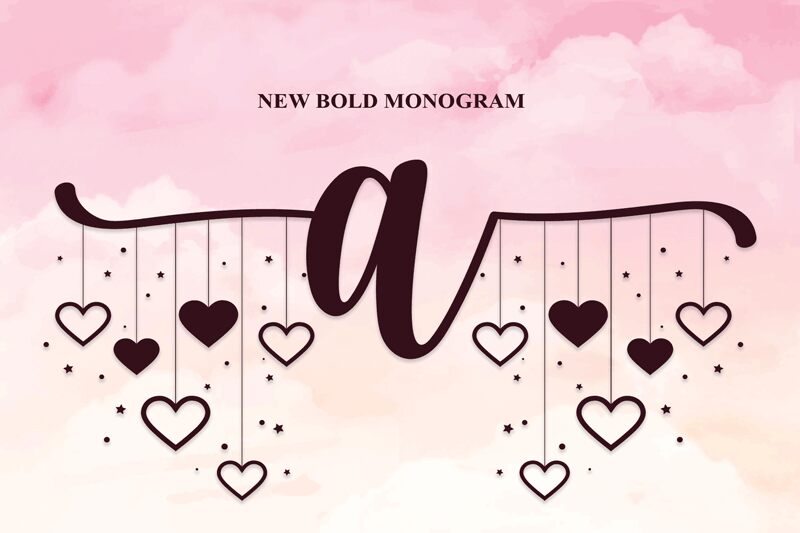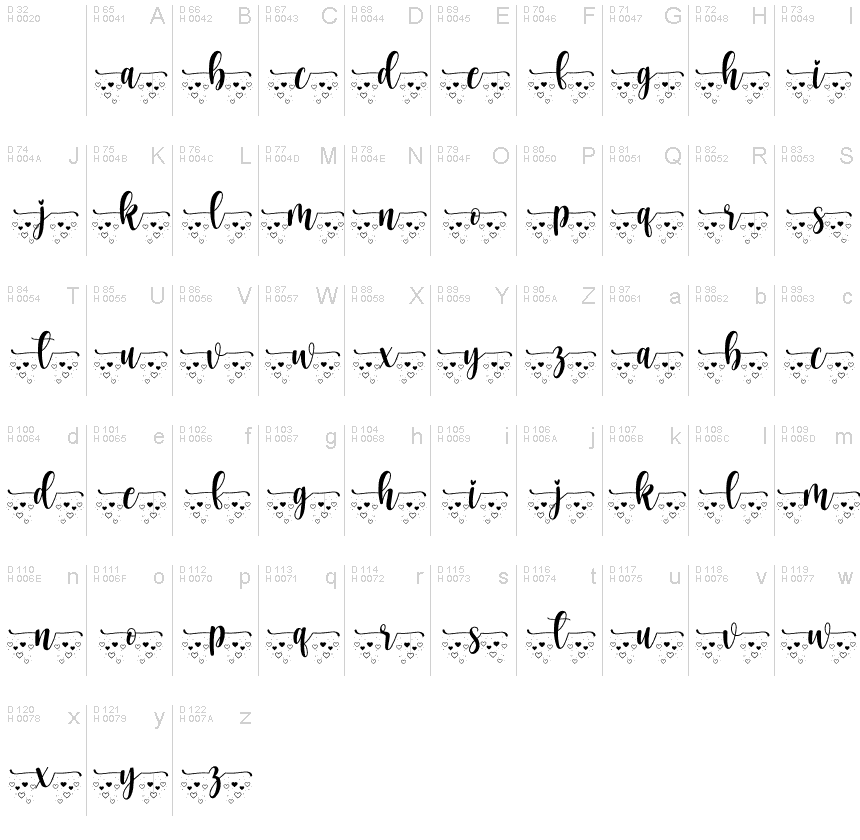
Heart Monogram
Heart Monogram by Scratchones is a captivating display font that exudes charm and personality. With its decorative style and semi-light weight, this font dances between whimsy and elegance, making it an exquisite choice for a plethora of design projects. The playful hearts that dapple the characters bring a touch of romance and affection to any canvas, perfect for invitations, branding, and personalized gifts.
The fluidity of Heart Monogram's strokes lends itself to an aesthetic that is both contemporary and timeless. It's an ideal selection for those seeking to infuse their work with a sense of joy and heartfelt expression. Whether you're crafting wedding stationery or looking to add a special flair to your social media graphics, Heart Monogram stands ready to transform your creative vision into a reality with its distinctive character and style.